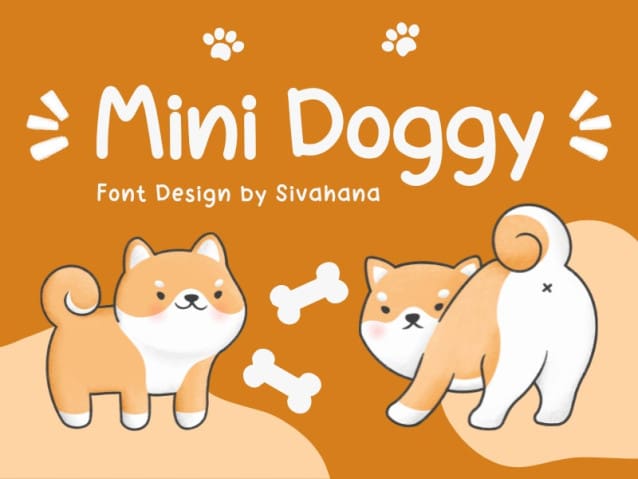
Mini Doggy Font
Mini Doggy Font, is a chunky, comic, and cartoon handwritten font. With its neat and joyful personality, this font will enhance any project you wish to create!